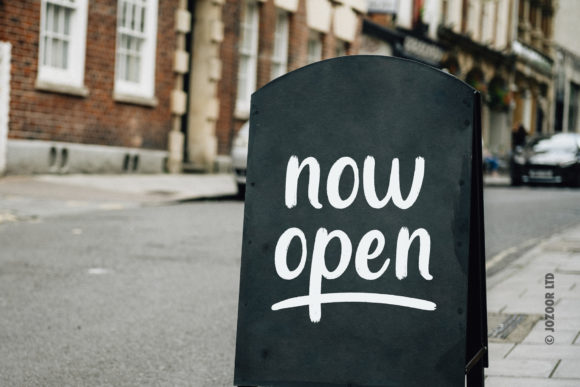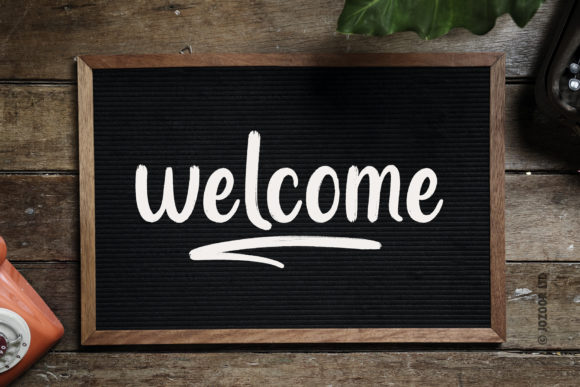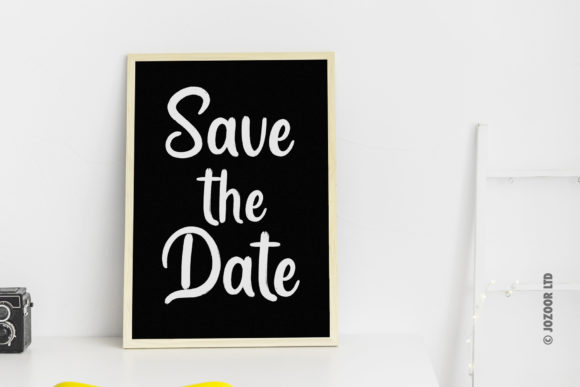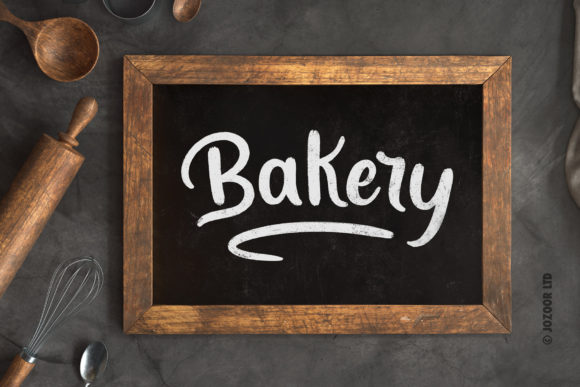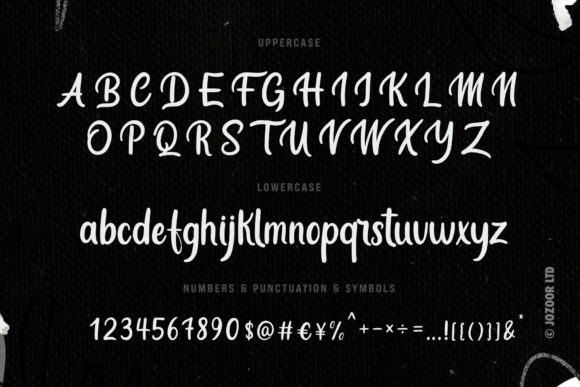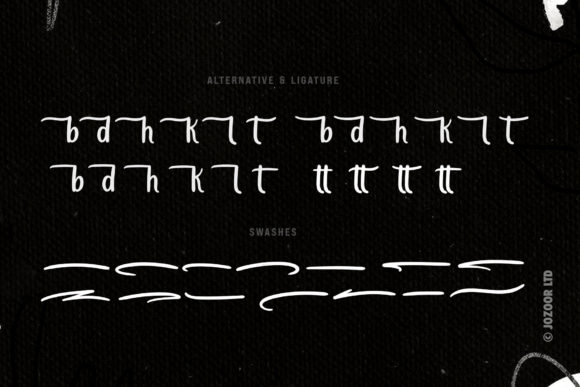
Introduction to Graisony Font
Imagine yourself in the middle of a creative project, surrounded by sketches and ideas, but something’s missing – that perfect font to elevate your design. You start searching for the perfect font to add that extra flair, and then, you stumble upon the Graisony Font. This cool and fun-looking display font is about to take your designs to the next level.
The Graisony Font is not just any font; it’s a design resource that’s waiting to be unleashed on your next creative project. With its PUA encoded features, you can access all the glyphs and swashes with ease, allowing you to create unique and high-quality designs that will leave a lasting impression. Whether you’re working on a project with a transparent background or need a font that can add a touch of sophistication, the Graisony Font is the perfect addition to your design arsenal.
Key Features of Graisony Font
- Unique, stylish font with a transparent background, ideal for modern designs.
- Perfect for designers looking for a versatile font to enhance their digital and print projects.
- Features a high-resolution design, suitable for use in various mediums, including web, print, and social media.
- Supports multiple languages, making it a valuable asset for designers working on international projects.
Honest Review: Graisony Font
As a designer, I’m always on the lookout for high-quality design resources to enhance my creative projects. Recently, I stumbled upon the Graisony Font, and I’m excited to share my honest review.
- Unique and stylish design: The Graisony Font boasts a modern and sleek aesthetic that’s perfect for contemporary designs.
- High-quality font files: The font files are crisp and clear, making it ideal for print and digital applications.
- Transparency issues: I encountered some issues with the font’s transparency, particularly when using it on a transparent background.
- Limited language support: The font may not be compatible with all languages, which could be a limitation for international projects.
Overall, I’m impressed with the Graisony Font’s design and quality. However, the transparency issues and limited language support are notable drawbacks. If you’re looking for a high-quality font for your creative project, the Graisony Font is worth considering, but be mindful of its limitations.
Tips for Getting the Most Out of Graisony Font
To get the most out of Graisony Font, use it in combination with other design elements, such as images and graphics. You can also experiment with different font sizes, colors, and styles to create a unique look.
The Graisony Font is suitable for a variety of creative projects, including logos, brochures, and social media graphics. Its transparent background makes it easy to overlay on images and other design elements.
Q: Is the Graisony Font suitable for use in print or digital projects?
The Graisony Font is a high-quality design resource that can be used in both print and digital projects. However, if you plan to use the font in a digital project, such as a website or mobile app, you may need to consider the font’s legibility at different screen resolutions and sizes. In general, the font is suitable for use in a variety of creative projects, from print materials to digital interfaces.